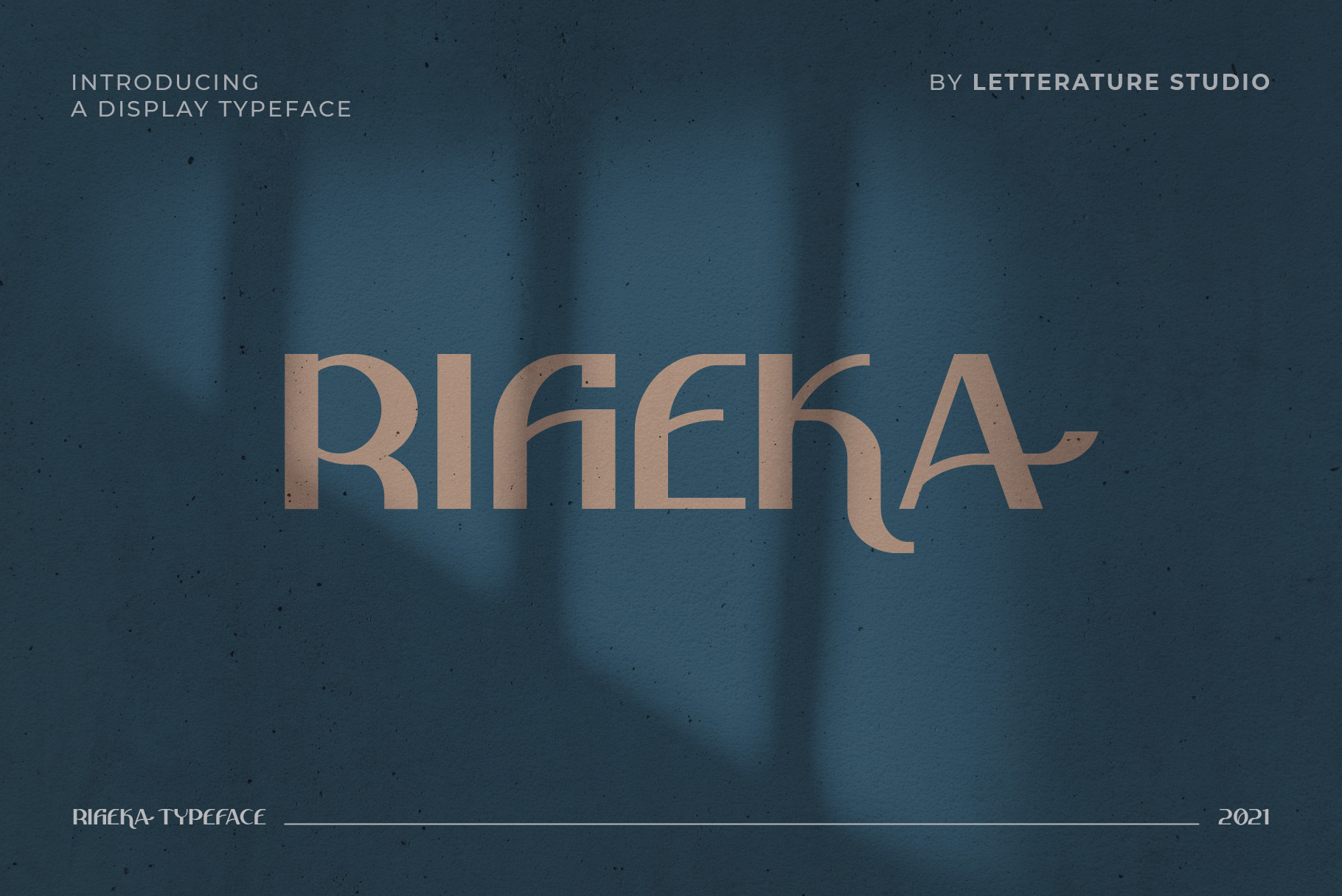
Rifieka // Modern Display Typeface
Rifieka comes with a modern classic style that is suitable for various purposes, magazines, business cards, web, wedding invitations, cosmetics, fashion and others.